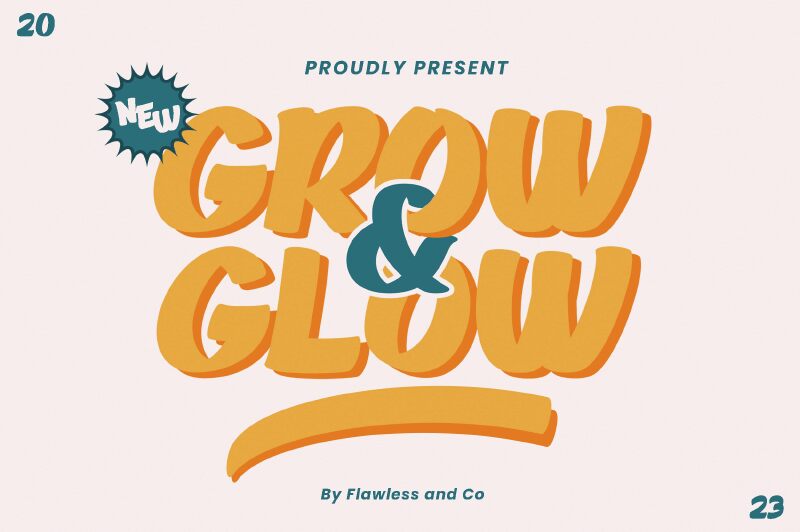
Grow and Glow Regular
Grow and Glow font by Achmad Yani of Flawless and Co. radiates the charm of a contemporary handwritten font amalgamated with captivating display characteristics. The bold, smooth-flowing font presents an aesthetic so remarkably beautiful that it ends up artistically weaving its magic on every design concept that it is incorporated into, irrespective of the use or industry vertical.
Find multiple uses for this free display font across branding products like labels, brochures, flyers, posters as well as digital applications including social media posts and website fonts. Texti can also be put to incredible use in printed packaging designs such as those found on perfume and candle boxes as well as other small items finding gifted circulation among customers.